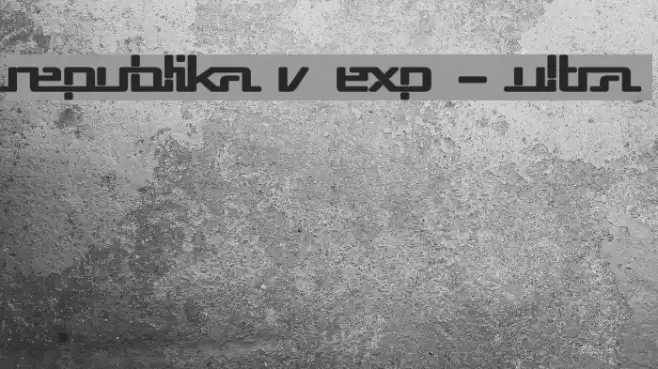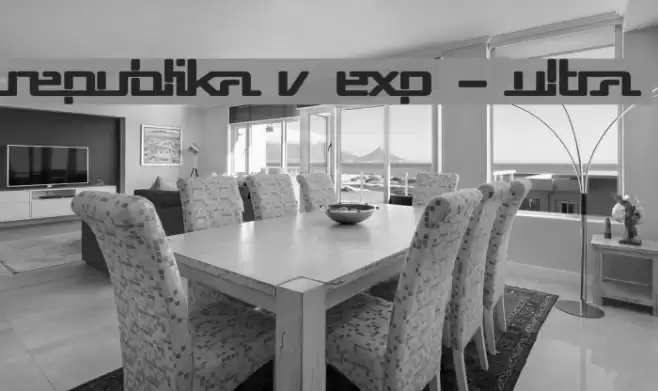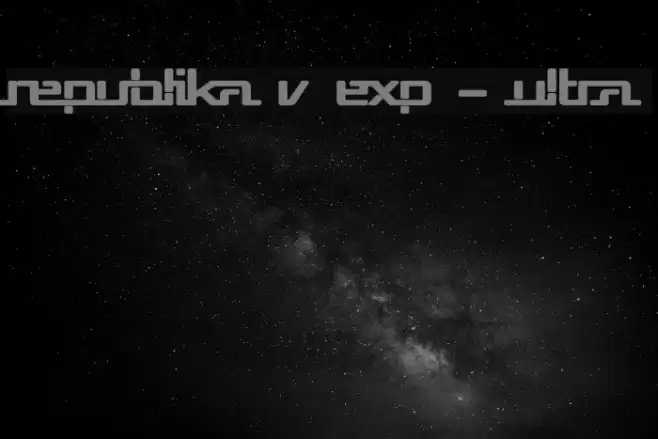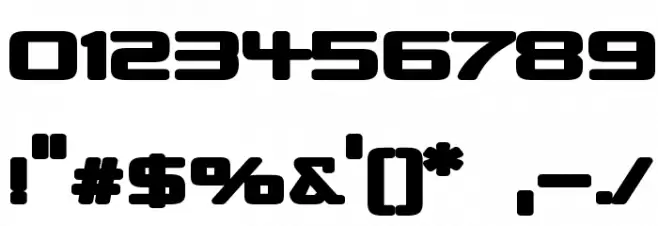
Republika V Exp - Ultra Font
Republika V Exp - Ultra Description
This font features a bold, geometric design with a futuristic and digital aesthetic. The characters are constructed with thick, uniform lines and rounded edges, creating a sense of modernity and technological advancement. The uppercase and lowercase letters maintain a consistent height, contributing to a monospaced appearance. The numbers and special characters follow the same design principles, ensuring uniformity across all glyphs. The font's style is reminiscent of digital displays or sci-fi themes, making it suitable for projects that require a modern and cutting-edge look.
A bold, geometric font with a futuristic and digital style from Uncategorized fonts.
- Proposed Projects: Ideal for technology branding, sci-fi movie posters, digital interfaces, and video game titles.
- Use Case: Logos, Headlines, Digital interfaces